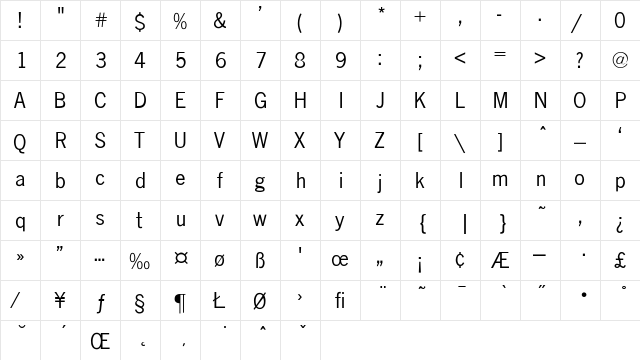
NewGothic Regular Regular
Design Context for NewGothic Regular Typeface
NewGothic Regular takes a clean, functional approach — its unadorned letterforms prioritise legibility and work reliably across screen and print environments.
Font Pairing: Works well alongside a characterful serif or display font that can carry the expressive load while NewGothic Regular handles the functional copy.
Pro Tip: Use NewGothic Regular for UI labels, navigation, and short-form body copy where clean legibility is the priority.